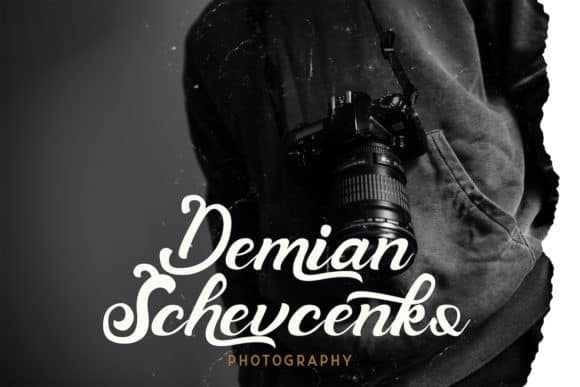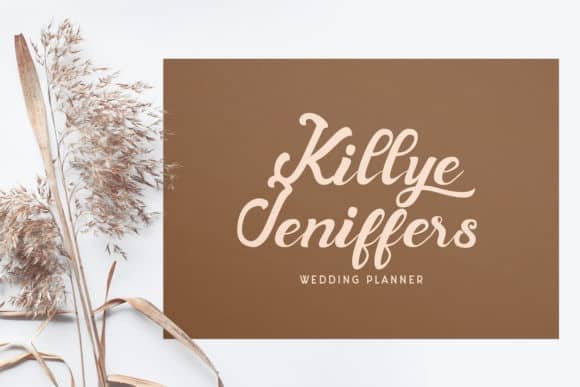
Andy Tusvah Calligraphy Font
Andy Tusvah Calligraphy Font inspired by modern script this font is a fun theme very good for book cover, wedding invitation, t-shirt, quote, logotype, craft and etc. Made from font designer named StringLabs. It’s a flowing handwritten font, described by an elegant touch, perfect for your favorite projects. Fall in love with its incredibly distinct and timeless style and use it to create spectacular designs!